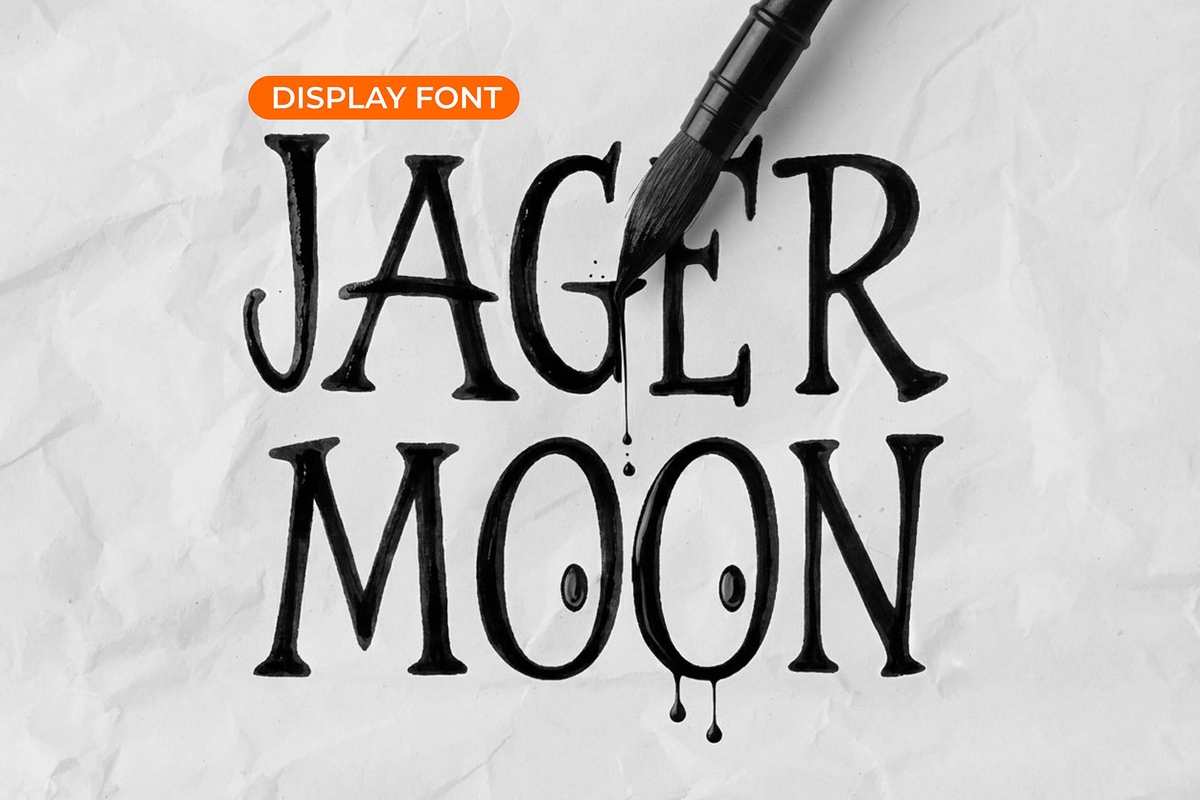
Jager Moon Jager Moon
Jager Moon is a timeless serif display font inspired by classic typography and traditional lettering styles. Designed with balanced proportions and elegant serif details, this font brings a refined and professional look to a wide variety of design projects. Featuring uppercase and lowercase letters, numbers, punctuation, and multilingual support, Jager Moon is suitable for branding, editorial layouts, logos, packaging, posters, and book covers. Its single-style structure keeps the font clean an